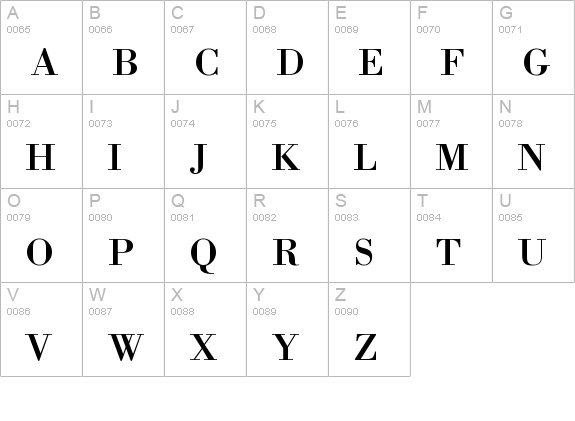
BodoniXT Font Details
BodoniXT is a stunning display font that exudes elegance and sophistication. Its classic serifs and clean lines make it perfect for creating timeless designs that demand attention. This font is perfect for headlines, logos, posters, and other creative projects where you want to make a bold statement. The BodoniXT font is not only visually striking but also versatile, as it can be used in a variety of design styles from modern to traditional. Its high contrast and distinct letterforms give a sense of luxury and refinement to any project. Best of all, BodoniXT is available to download for free at FontsMarket.com. Whether you're a professional designer looking for a new addition to your font collection or a hobbyist exploring typography, this font is a must-have. Download BodoniXT today and elevate your designs with its timeless beauty and sophistication.